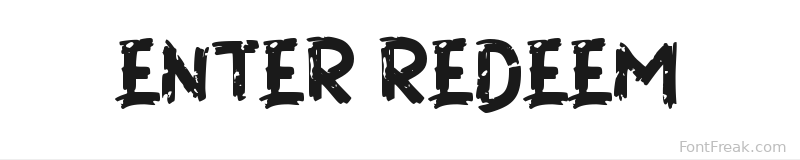
EightiesLocker
About EightiesLocker
The EightiesLocker font by Xerographer Fonts captures the nostalgic essence of the 1980s with its distinct display style. This freeware font stands out with its playful, retro aesthetic that evokes memories of vibrant graphics and bold design from that iconic decade. The font features a unique stroke weight that varies throughout, creating a sense of movement and dynamism. Its slightly irregular spacing adds to the playful nature, making it an eye-catching choice for various creative projects.
EightiesLocker is ideal for a range of applications, particularly those that aim to convey a fun, retro vibe. It works exceptionally well for designing movie posters that pay homage to classic 80s films, as well as for themed party invitations that require a touch of nostalgia. Additionally, this font is perfect for restaurant menus looking to attract customers with a lively and inviting atmosphere. Graphic designers will find it useful for crafting eye-catching social media graphics and content creators can enhance their blogs or websites with this distinctive typeface that resonates with a retro audience.
Targeted towards graphic designers, small business owners, and content creators, EightiesLocker provides a versatile option for anyone looking to add a unique flair to their projects. Its blend of retro charm and modern usability makes it a valuable addition to any designer's toolkit. The EightiesLocker font free download allows users to experiment and incorporate this distinctive typeface into their work without any financial constraints. In a world where many fonts can feel generic, EightiesLocker stands out by bringing a vibrant, nostalgic energy that is sure to leave a lasting impression.